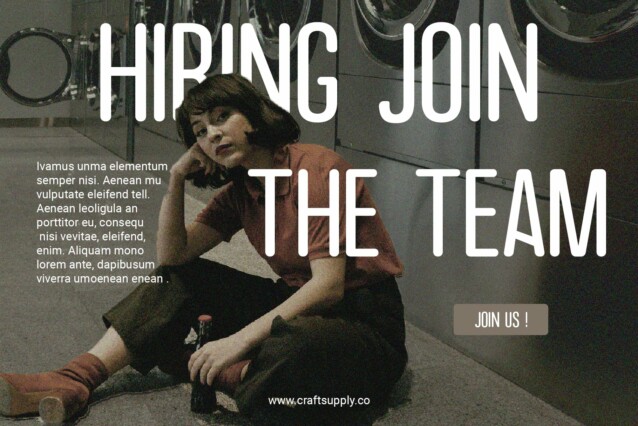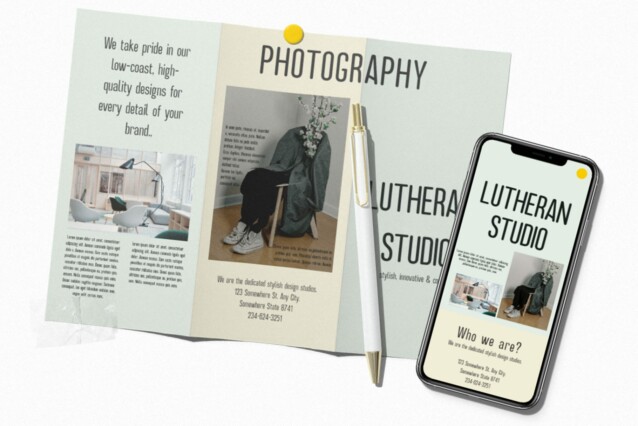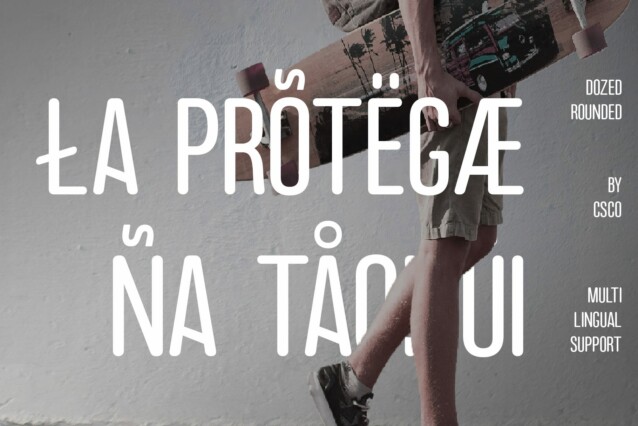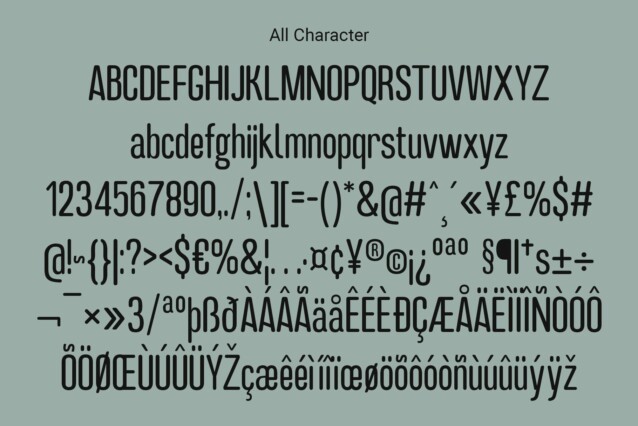
Dozed Rounded Font
Dozed Rounded Font is a sleek and low-contrast sans serif typeface, perfect for contemporary design projects. Its condensed form ensures efficient use of space while maintaining readability.
Softened Stem Endings With rounded stem endings, This font exudes a subtle softness, adding a touch of warmth to its modern aesthetic. This feature enhances legibility and contributes to a friendly vibe.